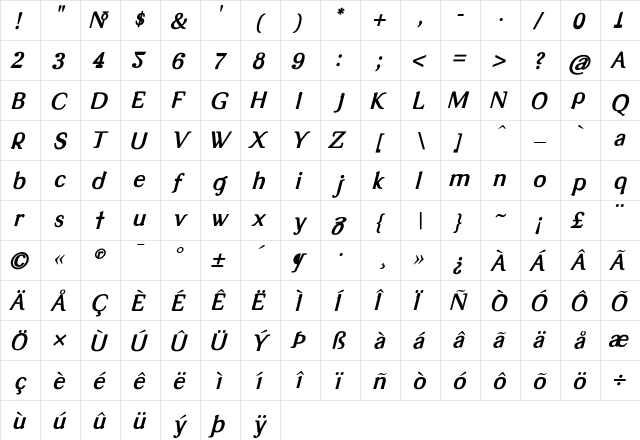
Tex ItalicBold
Design Context for Tex Typeface
Tex is a composed and adaptable typeface that performs quietly and consistently across a wide range of design contexts. Its italic angle brings a sense of urgency and motion to the letterforms. The heavy weight commands attention and anchors typographic hierarchies.
Pro Tip: Use Tex for emphasis, pull quotes, and subheadings where its slanted energy can add rhythm to the layout.